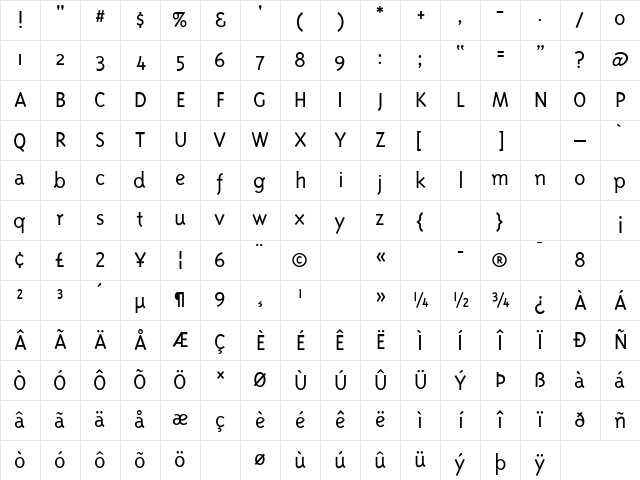
PannikinLightSSK Regular
PannikinLightSSK Family
Design Context for PannikinLightSSK
PannikinLightSSK is a composed and adaptable typeface that performs quietly and consistently across a wide range of design contexts. Its slender proportions lend an understated elegance to any composition.